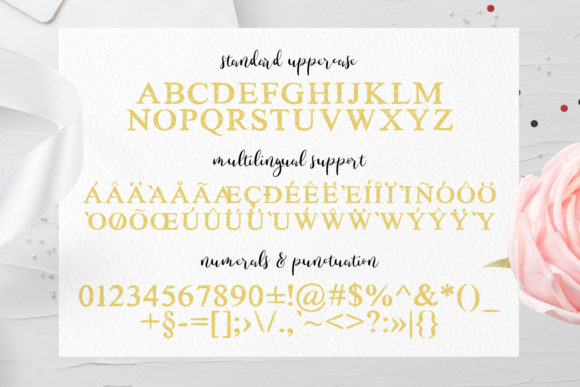
The Knot Font
About The Knot Font
The Knot is a charming, sophisticated and stylish font with a truly beautiful look. Fall in love with its romantic elegance.